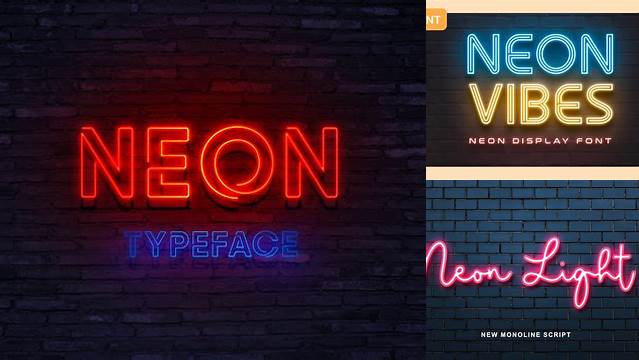
Neon Font: Free Download & Creative Uses
Hey guys! Ever scrolled through some awesome social media posts, website designs, or even album art and thought, "Wow, that glowing text effect is SO cool!" Chances are, you were looking at a neon font, or something designed to mimic that electrifying vibe. These fonts bring a retro, futuristic, and undeniably eye-catching energy to any project. Today, we're diving deep into the world of neoneon font free download options and exploring how you can use these dazzling typographic styles to make your designs pop. Get ready to light up your creative world!
Understanding the Allure of Neon Typography
You know, there's something inherently captivating about neon. It reminds us of vintage diners, buzzing cityscapes at night, and those classic arcade games we used to waste hours on. This visual nostalgia, coupled with a futuristic gleam, makes neon typography a versatile choice for a wide range of applications. When we talk about neoneon font free download, we're not just talking about a style; we're talking about evoking a mood, a feeling, a specific aesthetic. These fonts often feature thick, rounded strokes, a glowing outline, and sometimes even a subtle shadow effect that mimics real neon tubes. They are designed to stand out, to grab attention, and to inject a sense of playful energy or sophisticated retro-cool into your designs. Whether you're designing a poster for a music festival, branding a new tech startup, or even just creating a fun social media graphic, a well-chosen neon font can elevate your message from ordinary to extraordinary. It’s all about that visual punch, that immediate recognition, and the sheer fun factor that comes with working with such a distinctive style. Think about it: what other font style can instantly transport you to a specific era or create such a strong atmospheric presence? That’s the magic of neon!
Exploring Different Neon Font Styles
When you start searching for that perfect neoneon font free download, you'll quickly realize there's a whole spectrum of styles available, guys. It's not just a one-size-fits-all situation. Some neon fonts are super bold and blocky, perfect for making a loud statement, almost like those big, bright signs you see on Las Vegas Boulevard. Others are more slender and elegant, channeling a chic, art deco vibe that’s sophisticated and mesmerizing. You might find fonts that are designed to look like classic incandescent neon, with a distinct tube-like quality and perhaps a slight flicker effect simulated. Then there are the more modern interpretations, which might incorporate gradients, sharper edges, or even glitch effects, pushing the boundaries of what neon typography can be. Some fonts come with built-in outlines and glows, ready to use right out of the box, while others provide a cleaner base that you can then customize with your own layer styles in design software to achieve the exact glow intensity and color you desire. It's all about playing around and seeing what fits your project's personality. Don't be afraid to experiment with different weights, styles, and even decorative elements. The goal is to find a neon font that not only looks amazing but also effectively communicates the intended message and atmosphere for your brand or event. Each style offers a unique flavor, so choosing wisely is key to nailing that perfect retro-futuristic or boldly contemporary aesthetic you're aiming for.
Finding High-Quality Free Neon Fonts
Creative Applications of Neon Fonts
Now that we’ve covered the basics of finding and installing these dazzling fonts, let's get inspired by some awesome ways you can use them! Neon fonts aren't just for show; they bring a unique personality and energy to your projects. Get ready to spark some ideas, guys!
Designing Eye-Catching Social Media Graphics
Social media is all about stopping the scroll, and trust me, a vibrant neoneon font free download is your secret weapon! Think Instagram stories, Facebook banners, Twitter headers, or even just a cool quote graphic. A neon font can instantly inject personality and grab attention. For example, imagine a motivational quote written in a bright pink or electric blue neon font against a dark, starry background. It’s instantly more engaging than plain text, right? You can use it for event announcements, product launches, or even just to add a splash of color and retro flair to your daily posts. Play around with different color combinations – maybe a classic red and blue, or something more unconventional like a lime green and purple. Consider the platform too; bolder neon fonts work well for attention-grabbing posts, while slightly more subtle ones might suit a brand's overall aesthetic. Remember to keep the text legible, though. While the glow is cool, people still need to be able to read your message easily. Pairing a neon font with a solid, contrasting background is usually the way to go. So, go ahead, experiment with your next post and see how much extra engagement you get. It’s a fun way to make your feed stand out from the crowd!
Enhancing Branding and Logos
Branding is all about making a memorable impression, and a unique neoneon font free download can be a fantastic asset for creating a distinct brand identity. If your brand has a vibe that’s retro, futuristic, energetic, or playful, neon typography can be a perfect fit. Think about businesses in the entertainment industry, nightlife, tech startups, or even quirky cafes. A logo designed with a neon font can instantly communicate energy and excitement. For instance, a bar might use a glowing red neon font for its name, evoking a sense of late-night allure. A retro gaming company could use a classic arcade-style neon font to tap into nostalgia. Even if your brand isn't explicitly